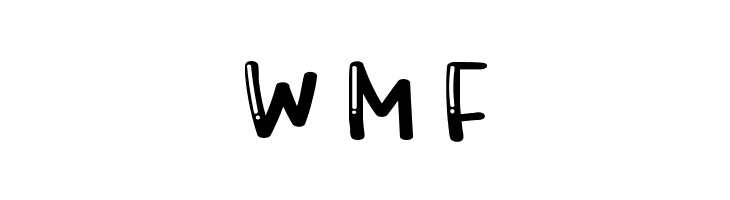
Monster Kingdom Font
A playful, bold font with decorative elements and consistent thickness.
King Rabbit Font
A playful, hand-drawn font with decorative elements and a bold, friendly style.
Blackboard School Font
A playful, informal font with a chalkboard handwriting style.
Coffee Milkshake Font
A playful, handwritten font with a whimsical and casual style.
Ghosteen Font
A bold, Gothic-inspired font with sharp serifs and dramatic flair.
Hello Midnight Font
A bold, jagged font with sharp, angular edges and a dramatic, intense style.
Blackboard School Awesome Font
A playful, handwritten font with a chalk-like texture and informal style.
Ramen Steak Font
A playful, hand-drawn font with decorative embellishments and a whimsical style.
FinallyChristyRegular Font
A playful, hand-drawn font with bold, uneven strokes and a whimsical style.
Funky Tiger Font
A playful and whimsical font with quirky, irregular letterforms.
Kayla Katrina Font
A playful and elegant script font with a handwritten touch.
Giraffe Highlight Font
A playful, handwritten font with smooth, flowing lines and a casual style.
Blonding Panda Font
A playful, bold font with rounded edges and a whimsical style.
Rosaline Font
A playful, handwritten font with tall, narrow letters and a casual style.
Clara Signature Font
A sophisticated and elegant handwritten script with fluid, graceful letterforms.
Kilimanjaro Font
A playful, casual handwritten font with irregular strokes and an organic flow.
MellyThoughtieRegular Font
A flowing, handwritten script font with a casual elegance.
RossaliaShineRegular Font
An elegant, flowing script font with intricate loops and swirls.
Miss Githa Font
A playful, elegant cursive script font with flowing, connected characters.